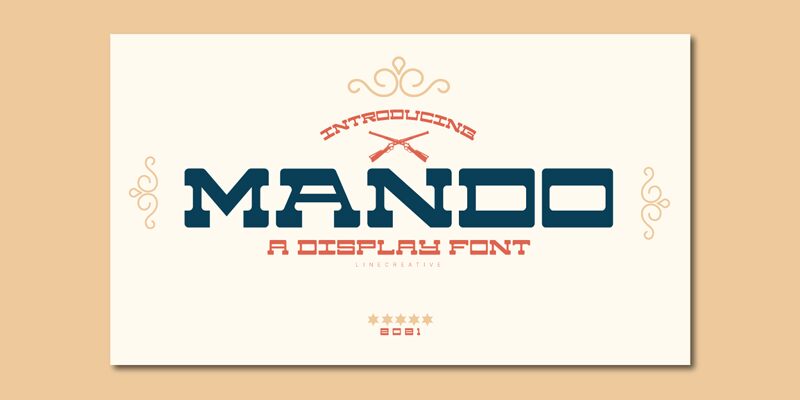
Mando
Introducing Mando, the bold and extra-wide display font that's perfect for all your western-inspired projects. Created by designer Ari Juanda, this unique font style is guaranteed to make a statement on any design project you have in mind. With its thick, sturdy lines and distinctive western flair, Mando is ideal for everything from posters and billboards to branding materials and packaging designs. Whether you're promoting a new product or just want to add some rustic charm to your next project, Mando has got you covered. So saddle up and get ready to create something truly remarkable with this one-of-a-kind font!